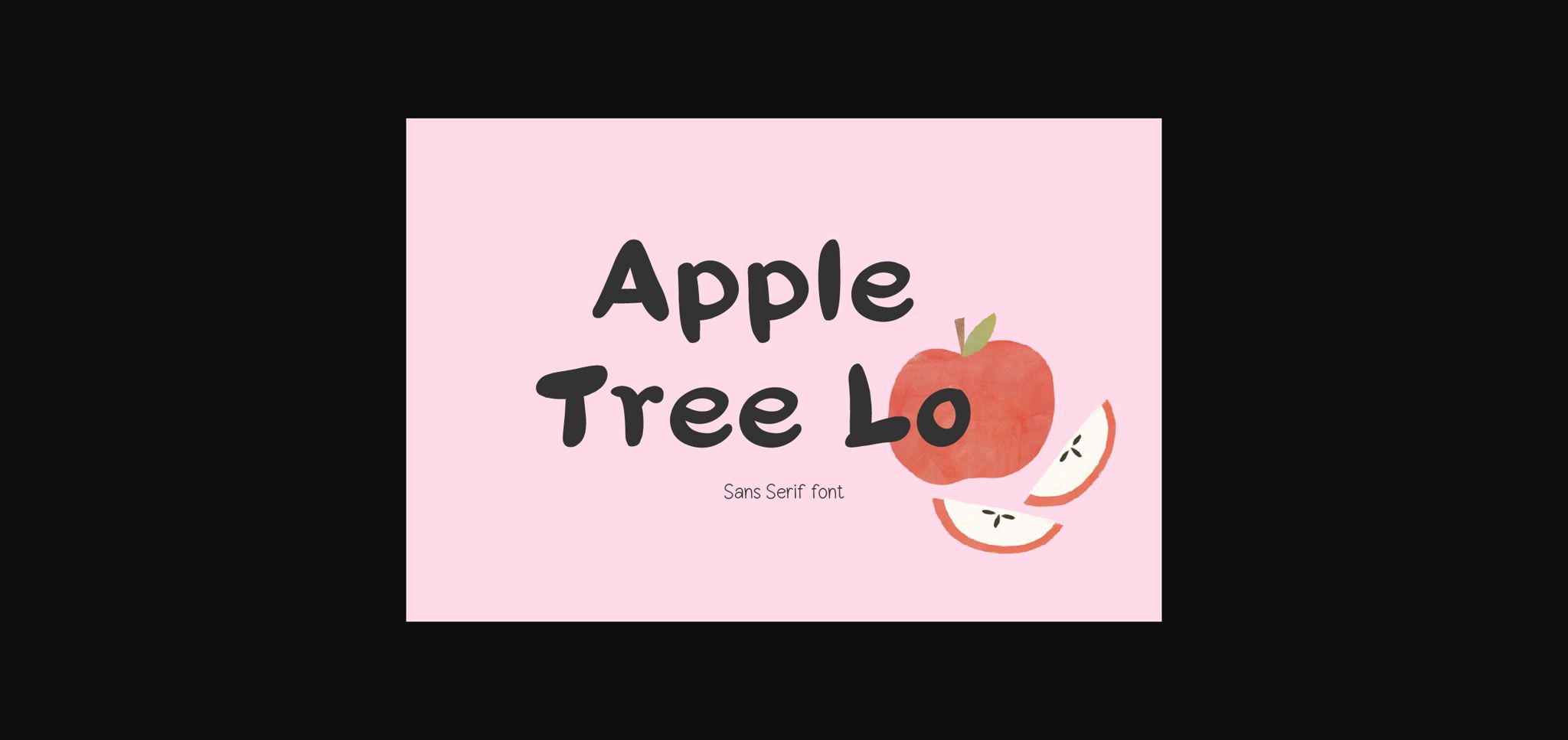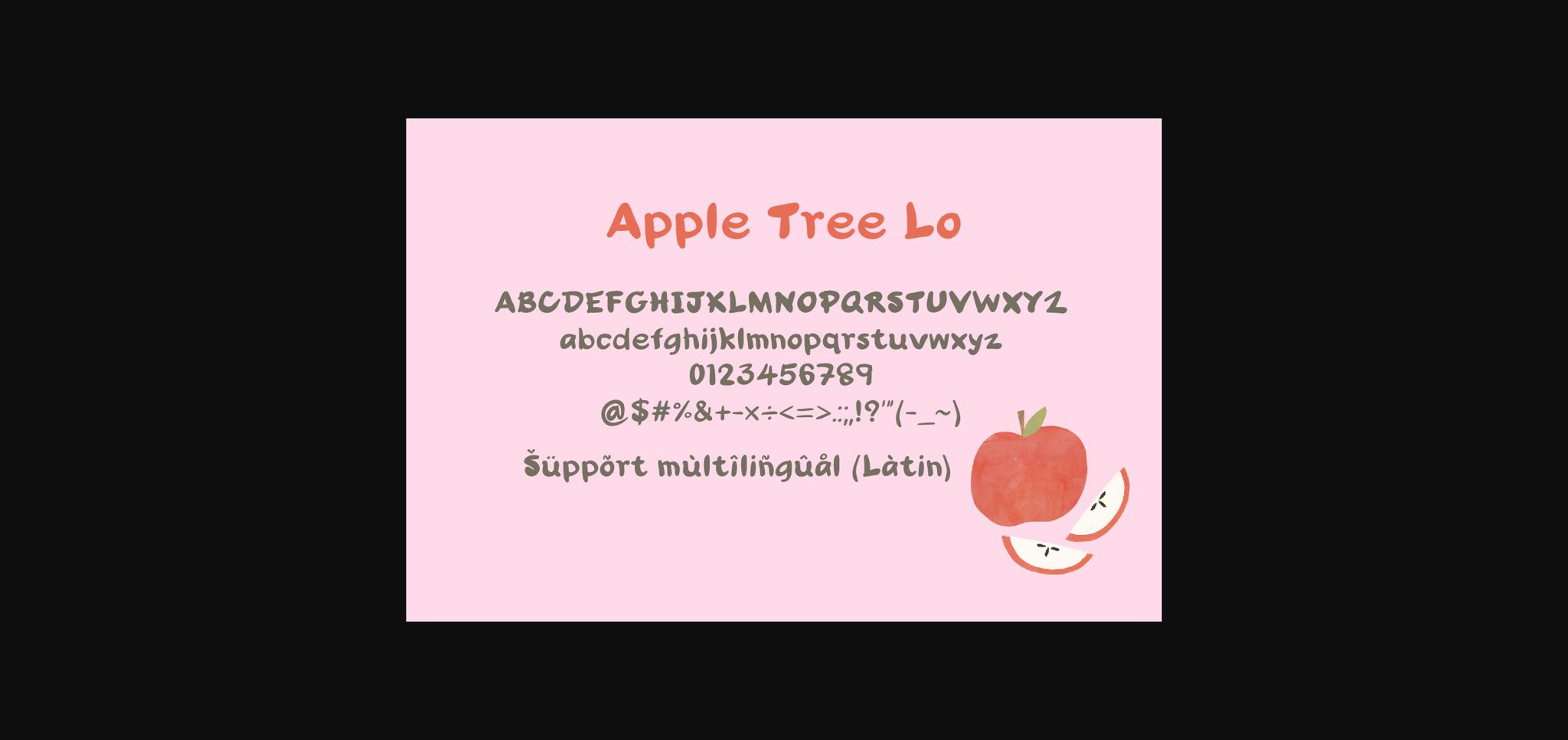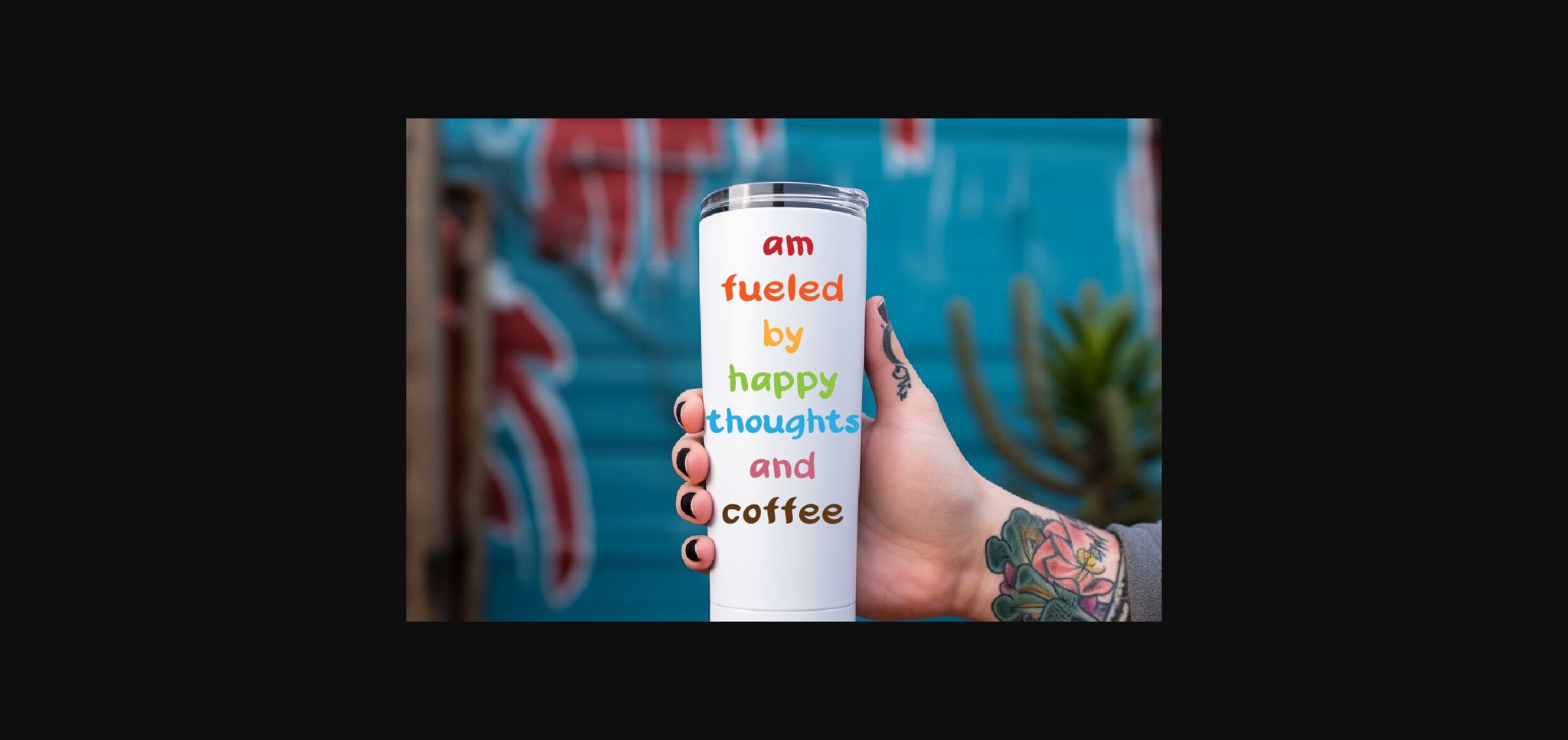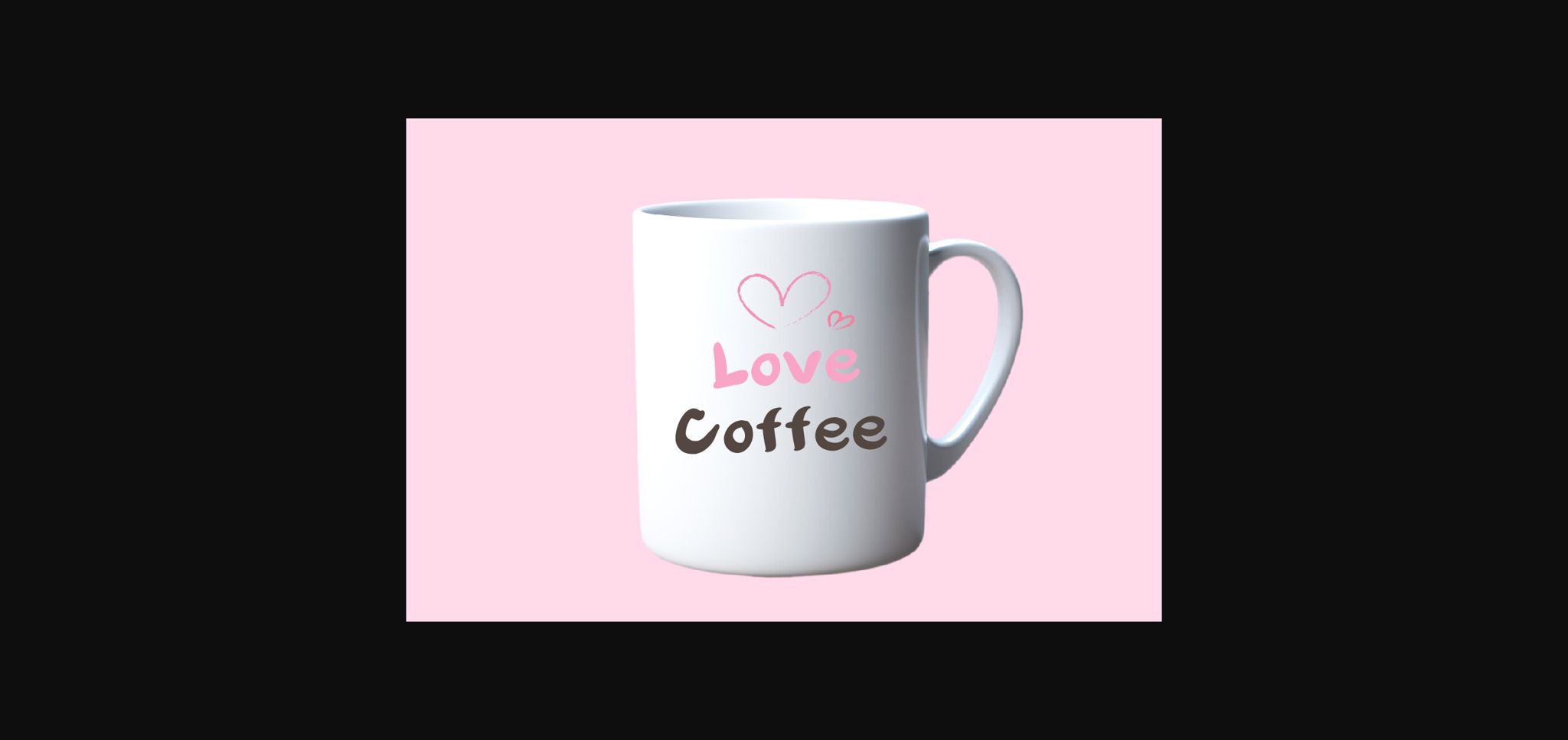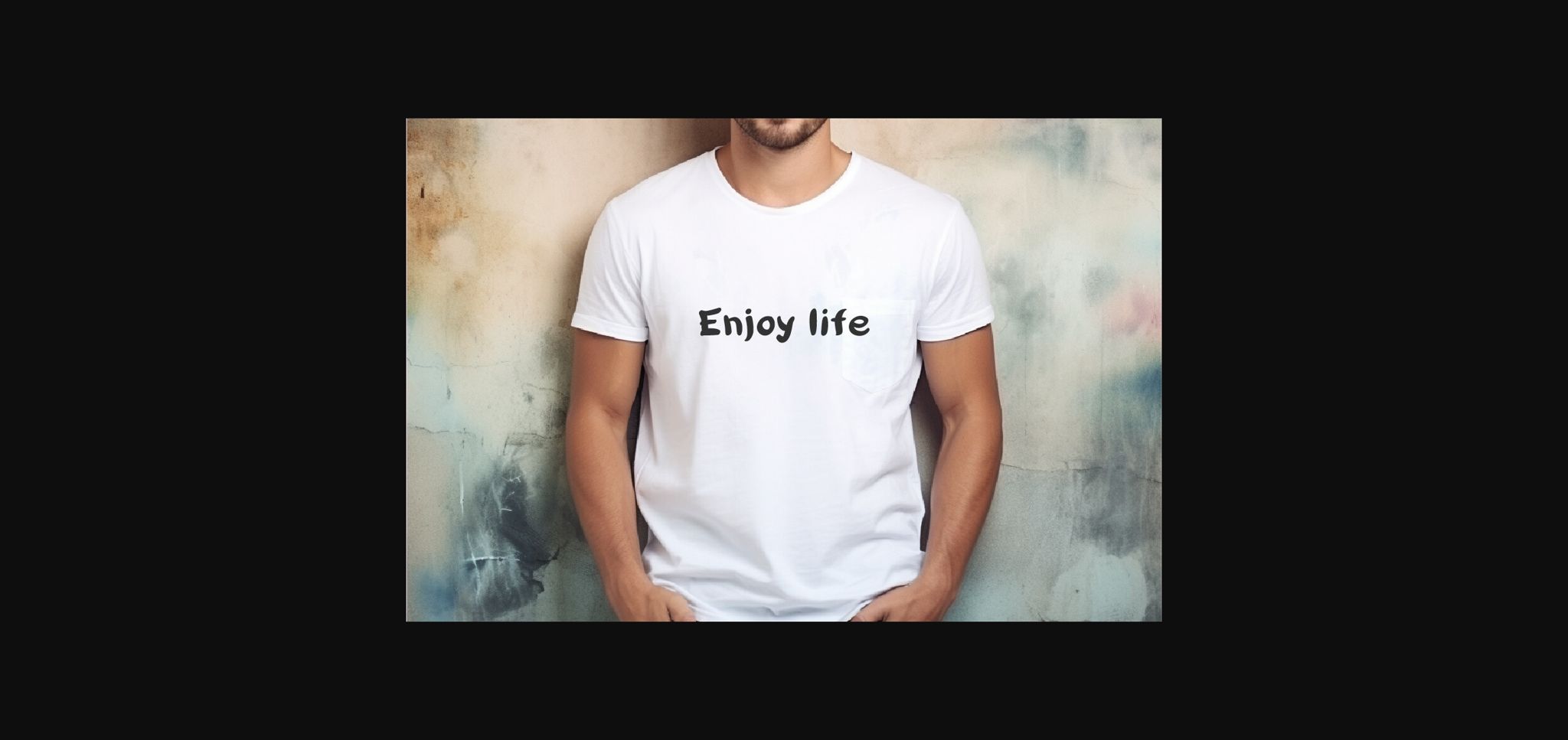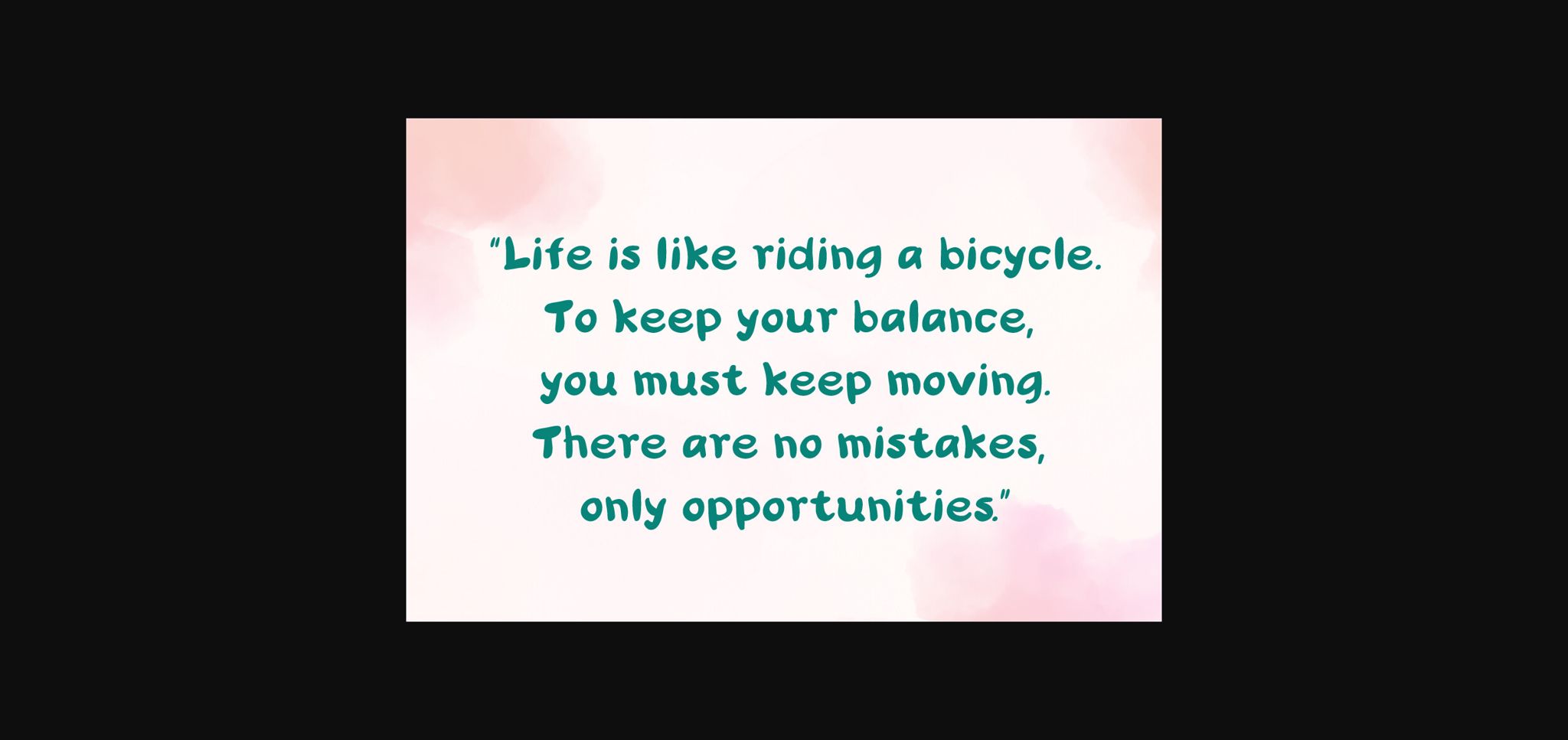
About Apple Tree Lo Font
Apple Tree Lo is a thick-lettered, minimal and modern sans serif font. This font is perfect for a wide spectrum of applications such as headlines, branding and packaging, back to school, party decoration, thank you cards, quotes, logos, posters, blogs, bag, T Shirt, clothing and many more!